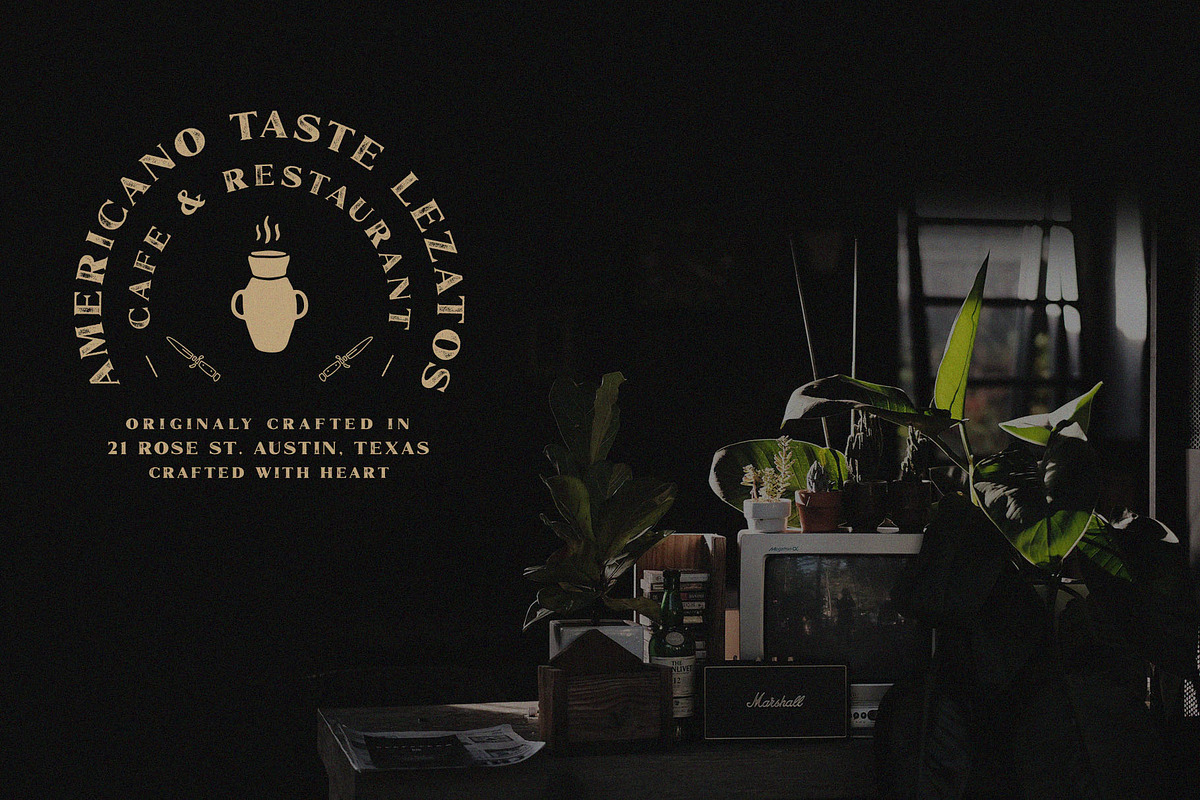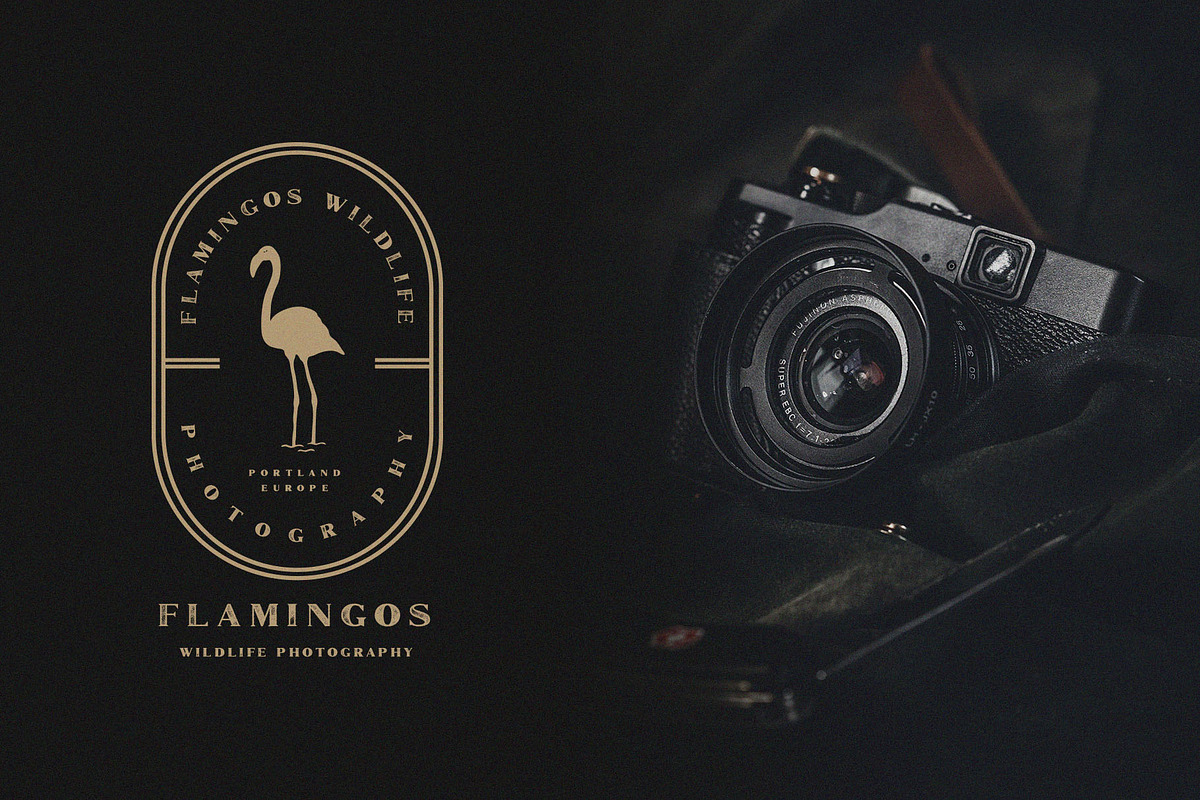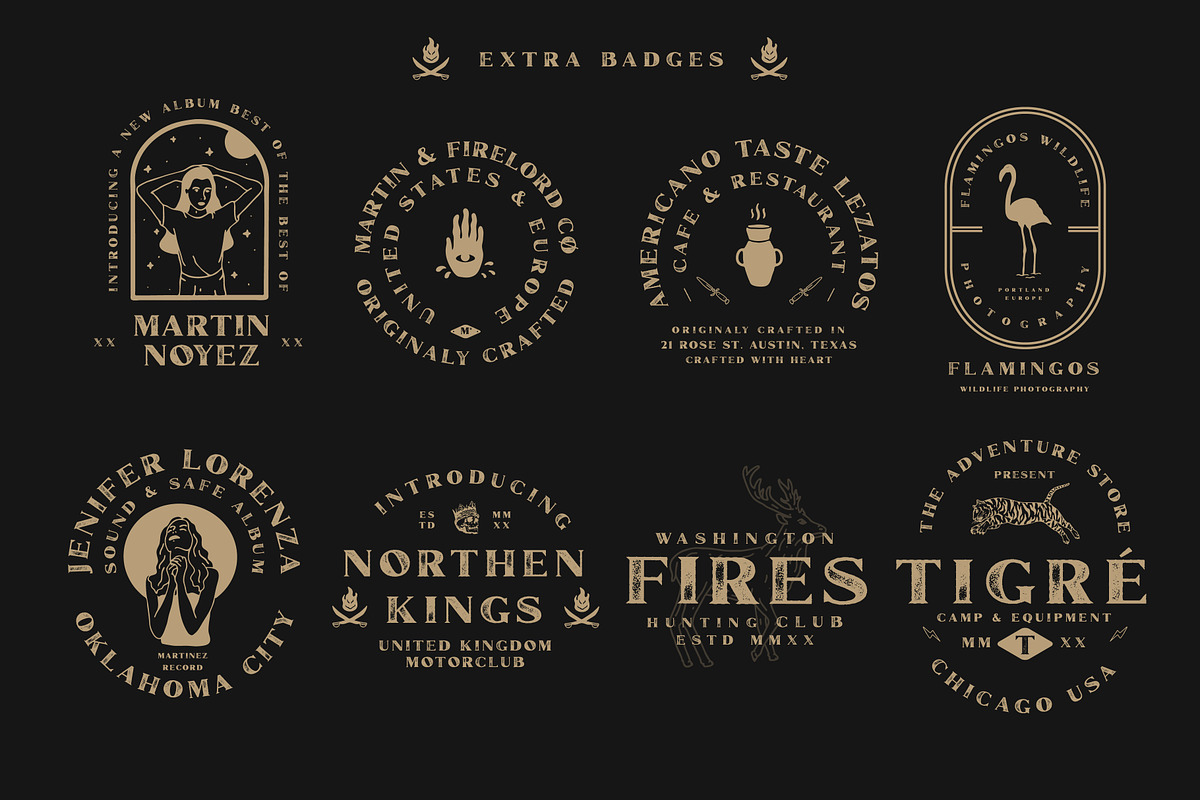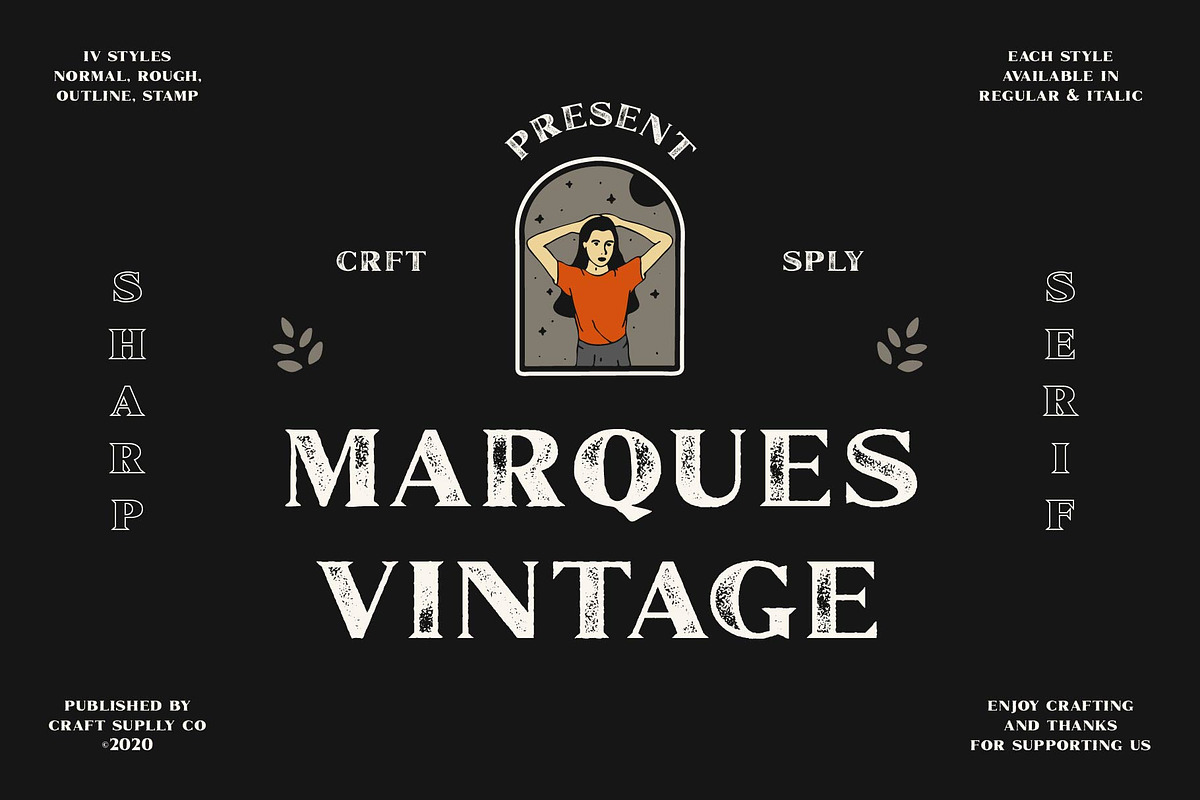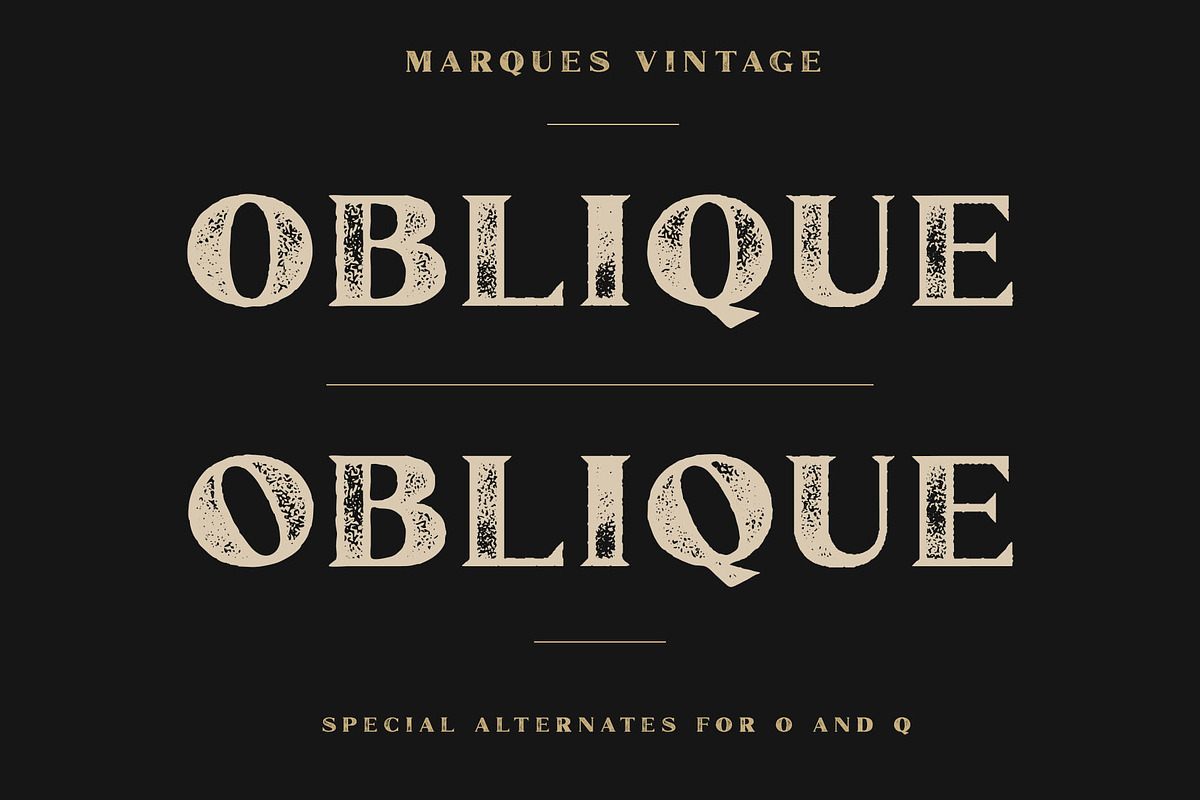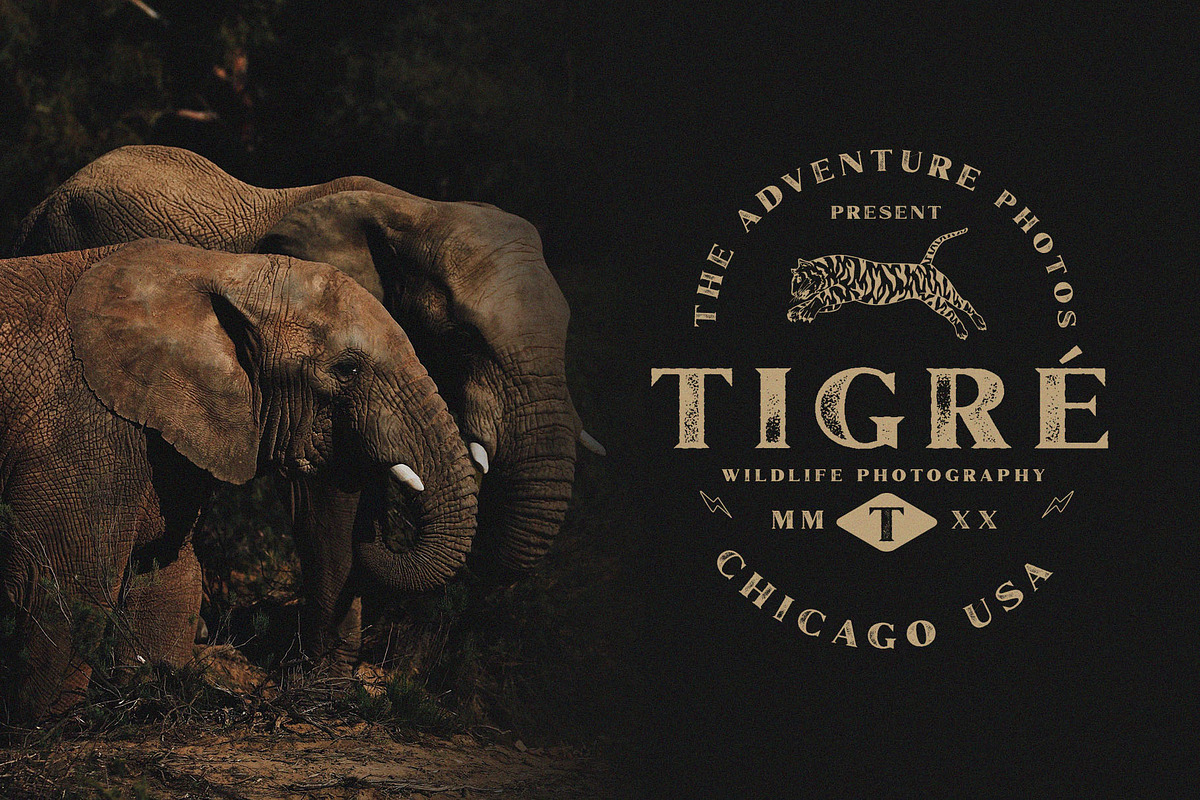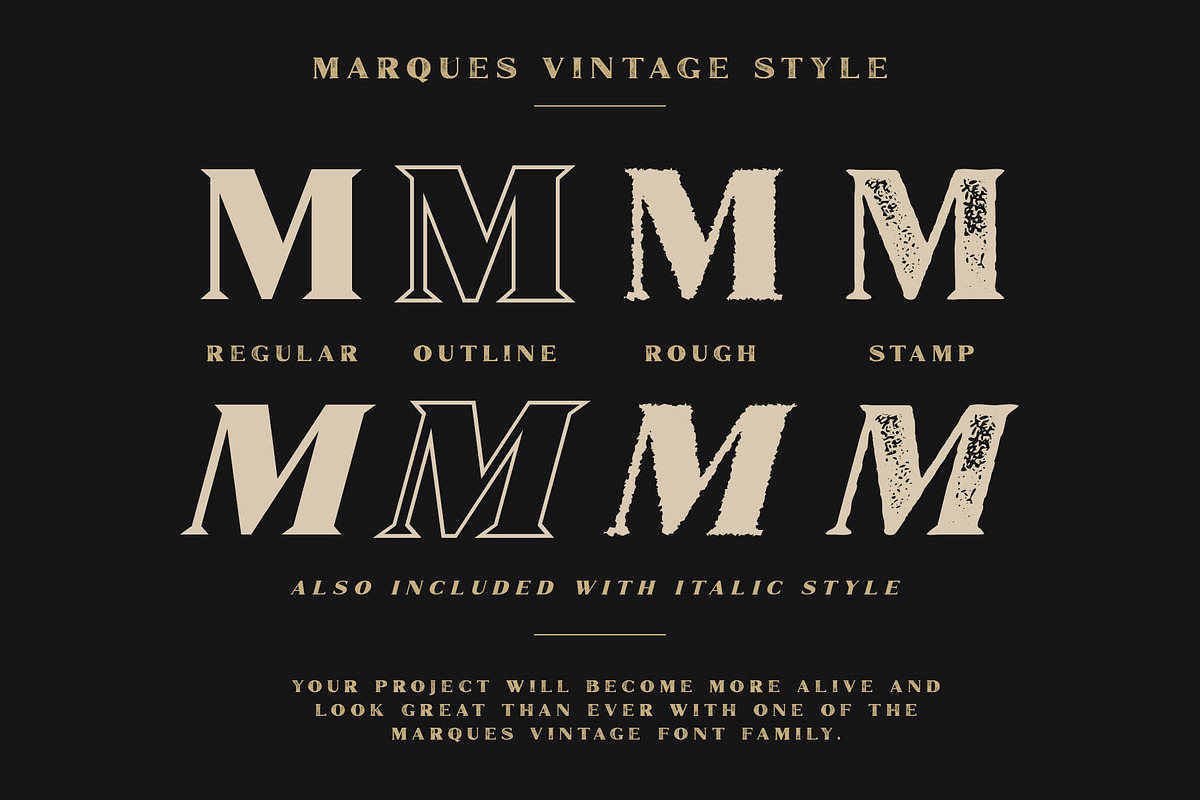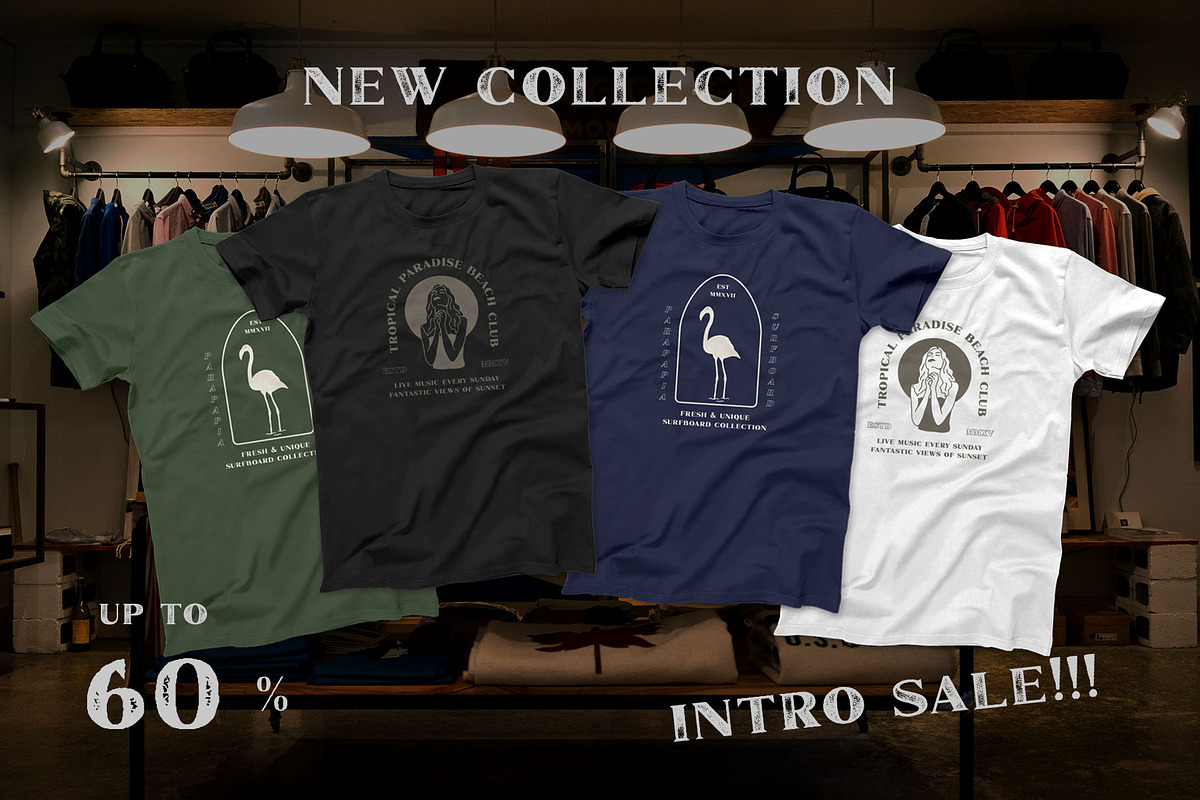
Marques Vintage Font Family + Extras
Introducing Marques Vintage Font Family + Extras includes 8 Style Fonts. It can be used to create almost all types of design projects like print materials. Just use your imagination and some graphic design set in Extras, your project will become more alive and look great than ever with one of the Marques Vintage Font.
You want to make a greeting card or a package design, or even a brand identity, craft design, any DIY project, book title, wedding font, pop vintage design, retro design or any purpose to make your art / design project look pretty and trendy? Feel free to play with all style of this font!
2. Standard Ligatures
3. Special Alternates for O & Q
4. Numerals & Punctuations (OpenType Standard)
5. Accents (Multilingual characters) (AÀÁÂÃÄÅCÇDÐEÈÉÊËIÌÍÎÏNÑOØÒÓÔÕÖUÙÜÚÛWYÝŸỲŸÆŒßÞ)
- Marques Outline
- Marques Rough
- Marques Stamp
- Marques Italic
- Marques Outline Italic
- Marques Rough Italic
- Marques Stamp Italic
- 1. All Caps Fonts
- 2. Standard Ligatures
- 3. Special Alternates for O & Q
- 4. Numerals & Punctuations (OpenType Standard)
- 5. Accents (Multilingual characters) (AÀÁÂÃÄÅCÇDÐEÈÉÊËIÌÍÎÏNÑOØÒÓÔÕÖUÙÜÚÛWYÝŸỲŸÆŒßÞ)
- 6. PUA Encoded